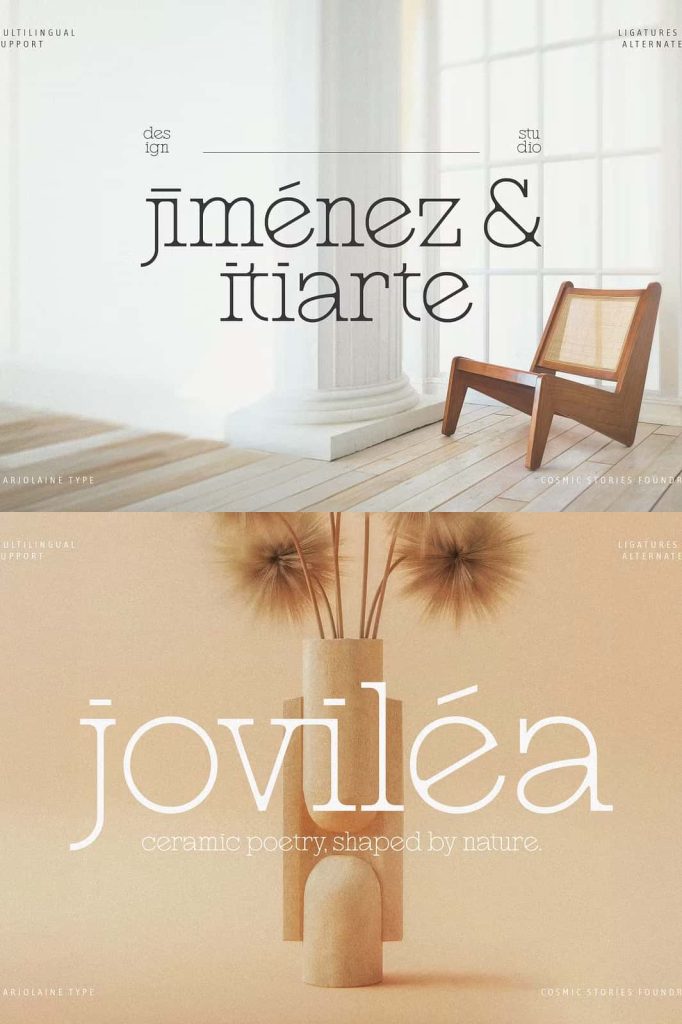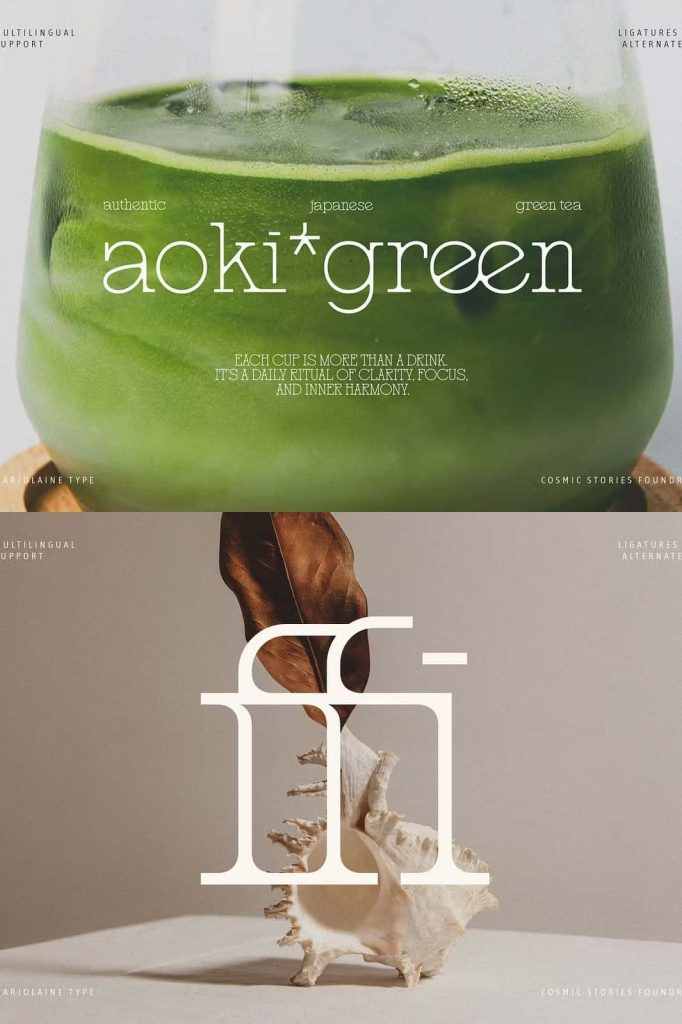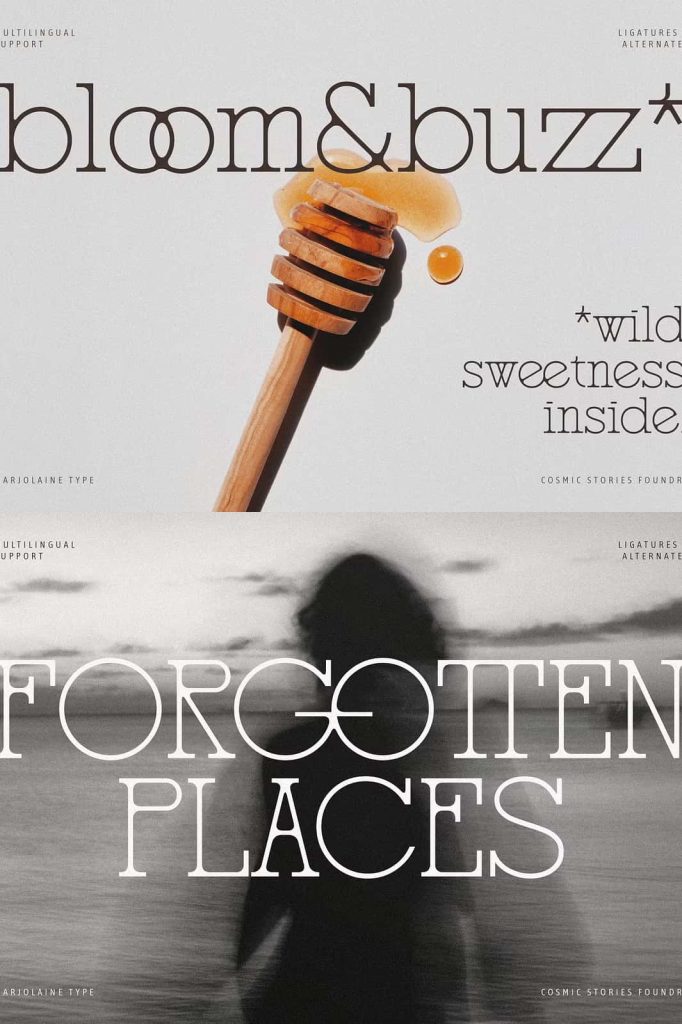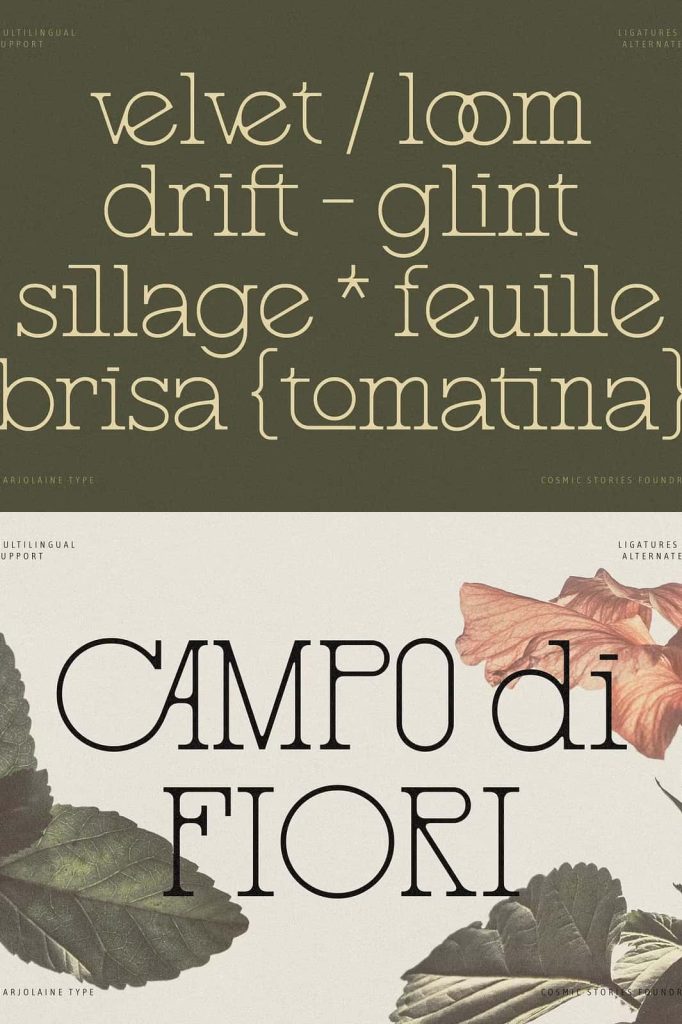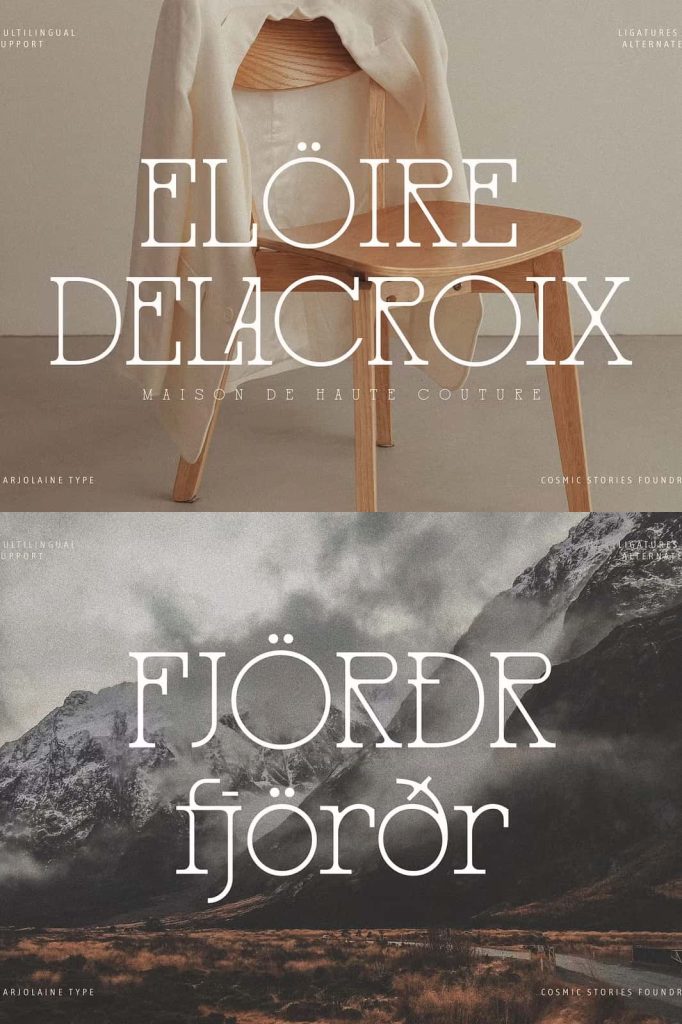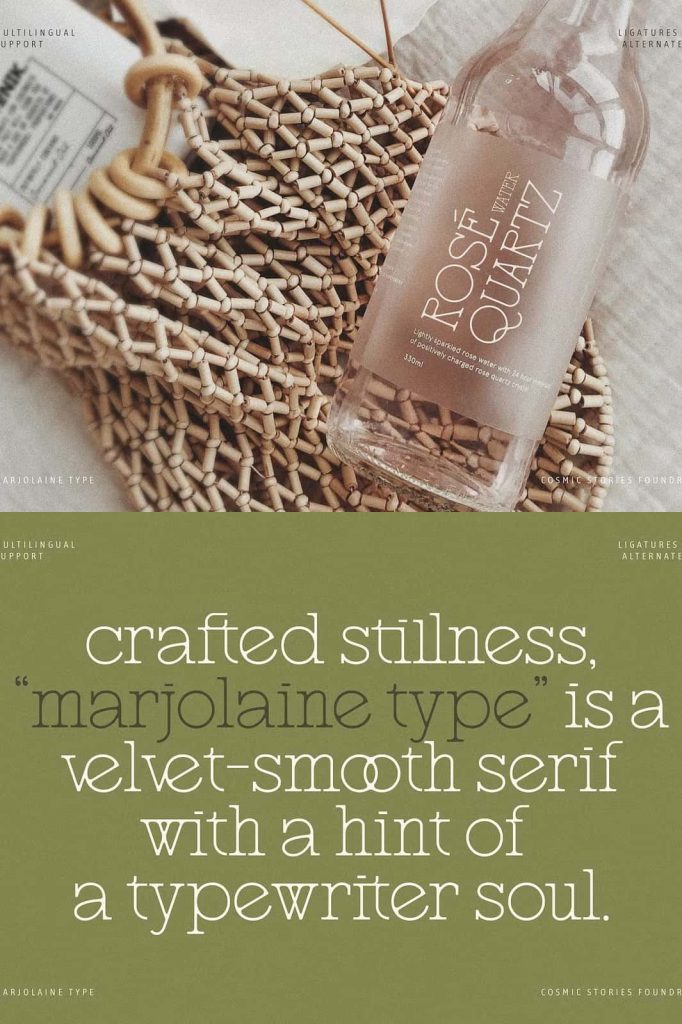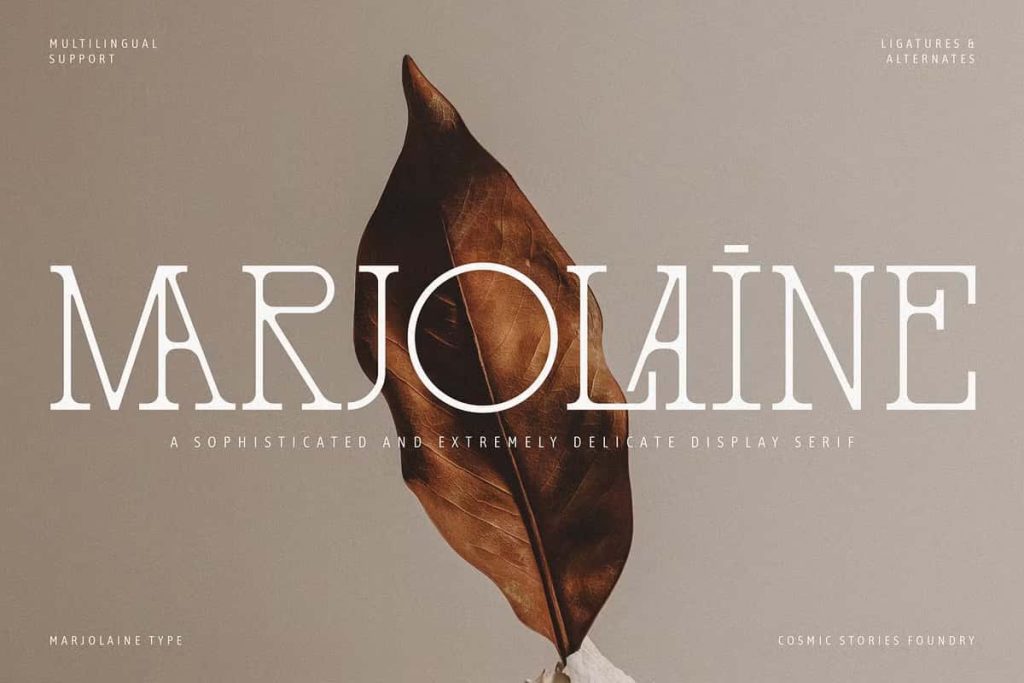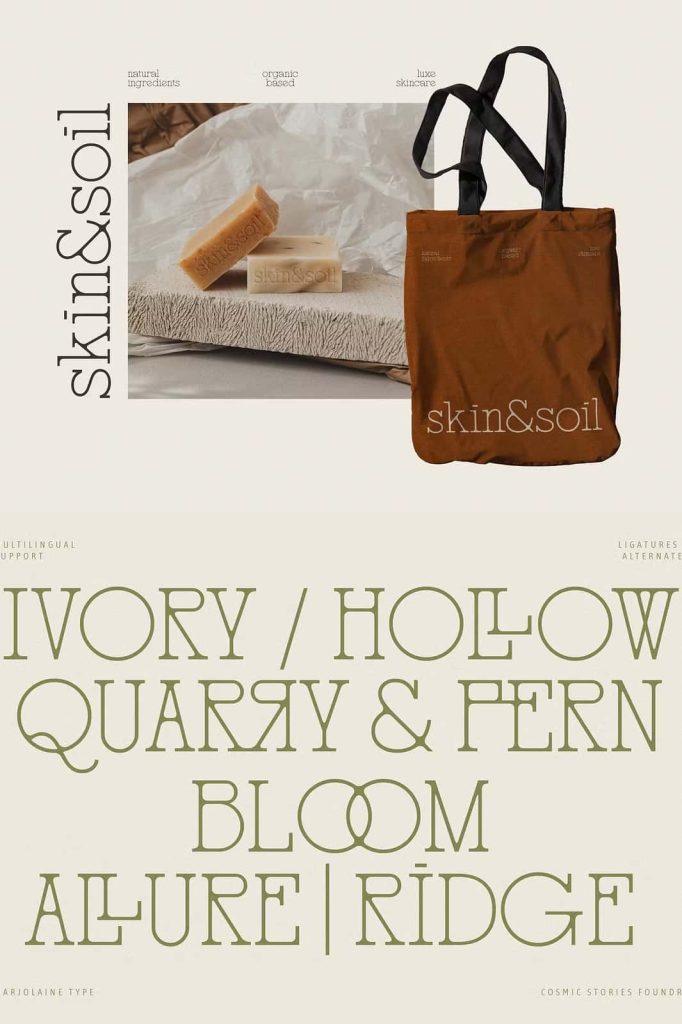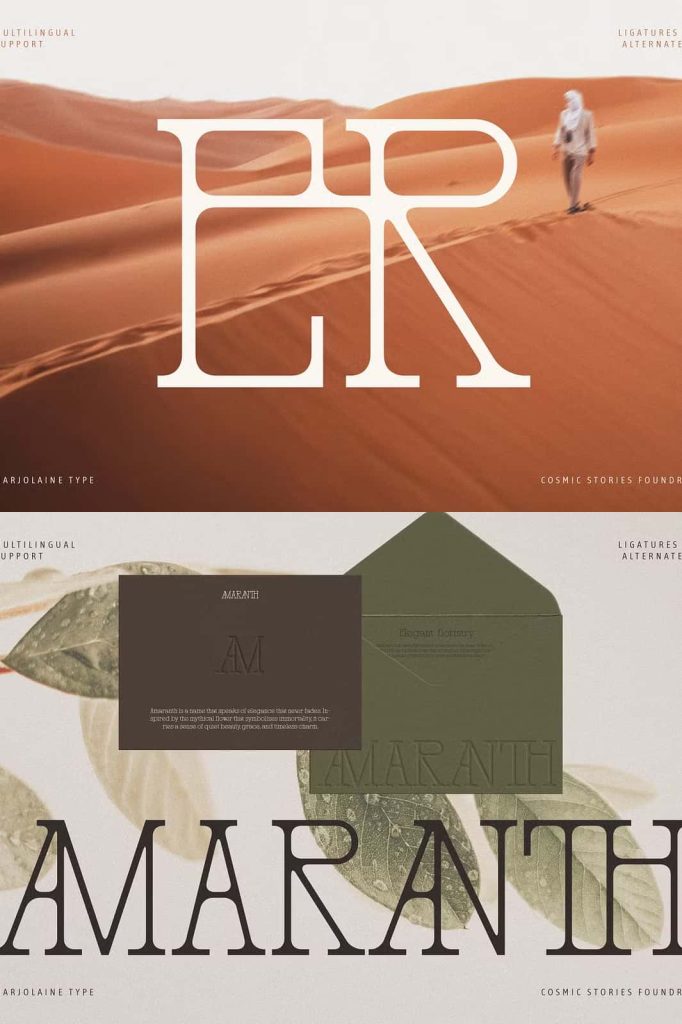
Marjolaine: A Refined Slab Serif Typeface with Character and Attitude
Marjolaine is a distinctive typeface that sits confidently between a delicate slab serif and a classic typewriter-inspired style. Designed with elegant proportions and a carefully balanced structure, this font delivers a refined yet expressive voice that immediately sets it apart. Marjolaine combines softness and strength in equal measure, making it a versatile typographic choice for designers who want their work to feel sophisticated, confident, and full of personality.
A Thoughtful Balance Between Elegance and Structure
At the heart of Marjolaine lies its unique balance. The typeface draws inspiration from traditional slab serifs while maintaining a lighter, more delicate presence. Its subtle slab characteristics provide stability and visual grounding, while its refined curves and proportions add elegance and fluidity. This careful balance allows Marjolaine to feel polished without becoming rigid or overly formal.
The typewriter influence introduces a clean, slightly mechanical edge that gives the font its distinctive attitude. This influence adds clarity and structure, helping the letterforms feel precise and intentional. As a result, Marjolaine communicates professionalism while still expressing warmth and charm.
Distinctive Personality with Subtle Strength
Marjolaine brings character to the forefront without overwhelming the design. Its letterforms carry subtle strength through confident strokes and balanced weight, allowing text to command attention without appearing heavy or aggressive. This makes the typeface ideal for projects that require a strong visual presence while maintaining refinement.
The elegant curves soften the mechanical influences, creating a harmonious rhythm across words and lines of text. This rhythm enhances readability and visual flow, making Marjolaine suitable not only for short display text but also for longer passages that benefit from personality and nuance.
Designed to Stand Out Without Losing Clarity
One of Marjolaine’s greatest strengths is its ability to stand out while remaining clear and readable. The thoughtful spacing and well-defined letter shapes ensure that text feels open and approachable. Even when used at smaller sizes, the font maintains legibility and visual consistency.
This clarity allows designers to use Marjolaine across a wide range of applications, from bold headlines to supporting text. The font adds interest and texture without distracting from the message, making it a reliable choice for both expressive and functional typography.
Perfect for Logos, Headlines, and Expressive Text
Marjolaine excels in logo design, where its unique blend of elegance and structure helps create memorable brand identities. The subtle slab serifs give logos a sense of authority and stability, while the refined curves add sophistication and charm. This combination makes Marjolaine particularly effective for brands that want to communicate confidence with a creative edge.
In headline design, Marjolaine delivers strong visual impact without feeling overpowering. Its balanced proportions draw the eye naturally, making it an excellent choice for editorial layouts, websites, posters, and promotional materials. Headlines set in Marjolaine feel intentional, stylish, and full of character.
Suitable for Longer Text with Personality
Unlike many display-focused typefaces, Marjolaine also performs well in longer text settings. Its clean construction and subtle slab features support comfortable reading, while its personality keeps the text engaging. This makes it a strong option for introductions, pull quotes, product descriptions, and branded content that benefits from a distinctive tone.
By maintaining consistency and visual harmony across paragraphs, Marjolaine allows designers to build cohesive typographic systems that feel both expressive and practical.
A Typeface That Enhances Modern Design Projects
Marjolaine is designed to adapt seamlessly to both print and digital environments. Its elegant structure reproduces beautifully in high-resolution print applications such as magazines, packaging, and stationery. At the same time, its clean edges and balanced forms ensure strong performance on screens, making it suitable for websites, digital publications, and user interfaces.
This versatility makes Marjolaine a dependable typeface for designers seeking a refined yet distinctive voice. Whether used as a primary brand font or as a complementary accent typeface, Marjolaine enhances visual communication with confidence and style.
A Sophisticated Typeface with Lasting Appeal
Marjolaine is more than a simple slab serif or typewriter-inspired font. It is a carefully crafted typeface that brings together elegance, character, and subtle attitude. Its ability to balance softness with strength allows it to adapt to a wide range of creative projects while maintaining a consistent and memorable identity.
With its refined proportions, distinctive personality, and versatile performance, Marjolaine stands as an excellent choice for designers who want typography that feels thoughtful, expressive, and timeless. It delivers visual interest, clarity, and sophistication in every letter.